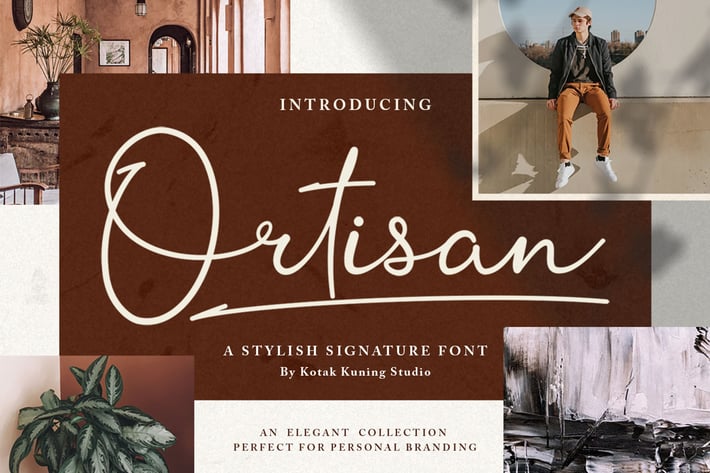
Ortisan Signature Font
Introducing the new Ortisan Signature script font - a handwritten signature script with a natural & stylish flow. This collection of scripts is perfect for personal branding.
The font is the great choice for the watermark on photography, signature or signature logo design, quotes, album cover, business card, and many other design projects. Ortisan Signature is here to elevate your work to the highest level. We keep this font looks elegant, classy, readable, stylish, catchy, and easy to use.